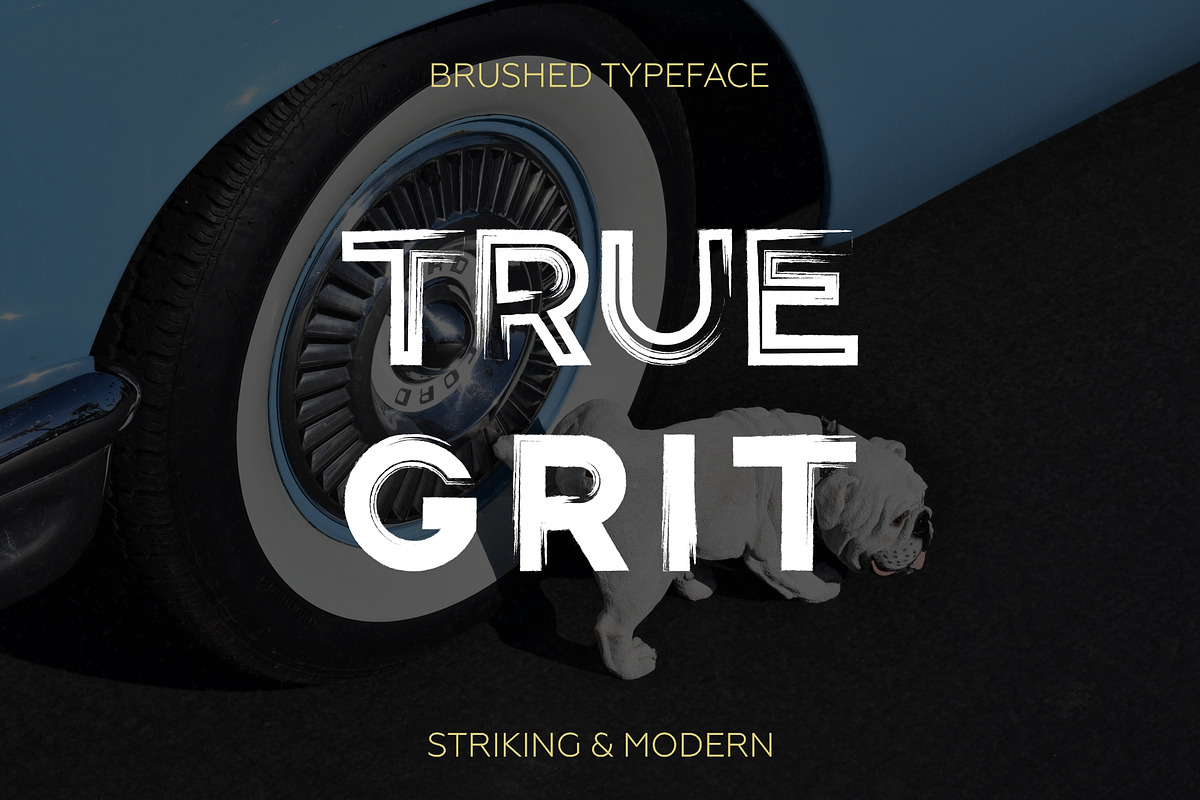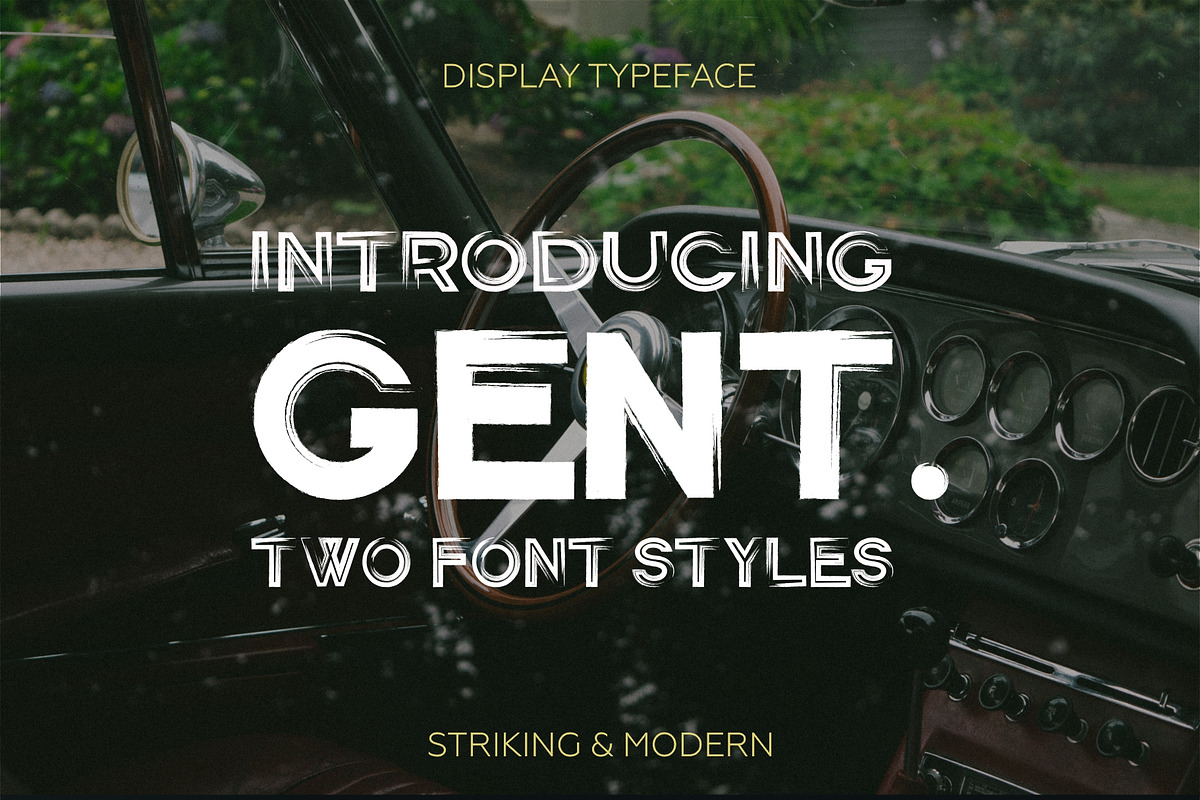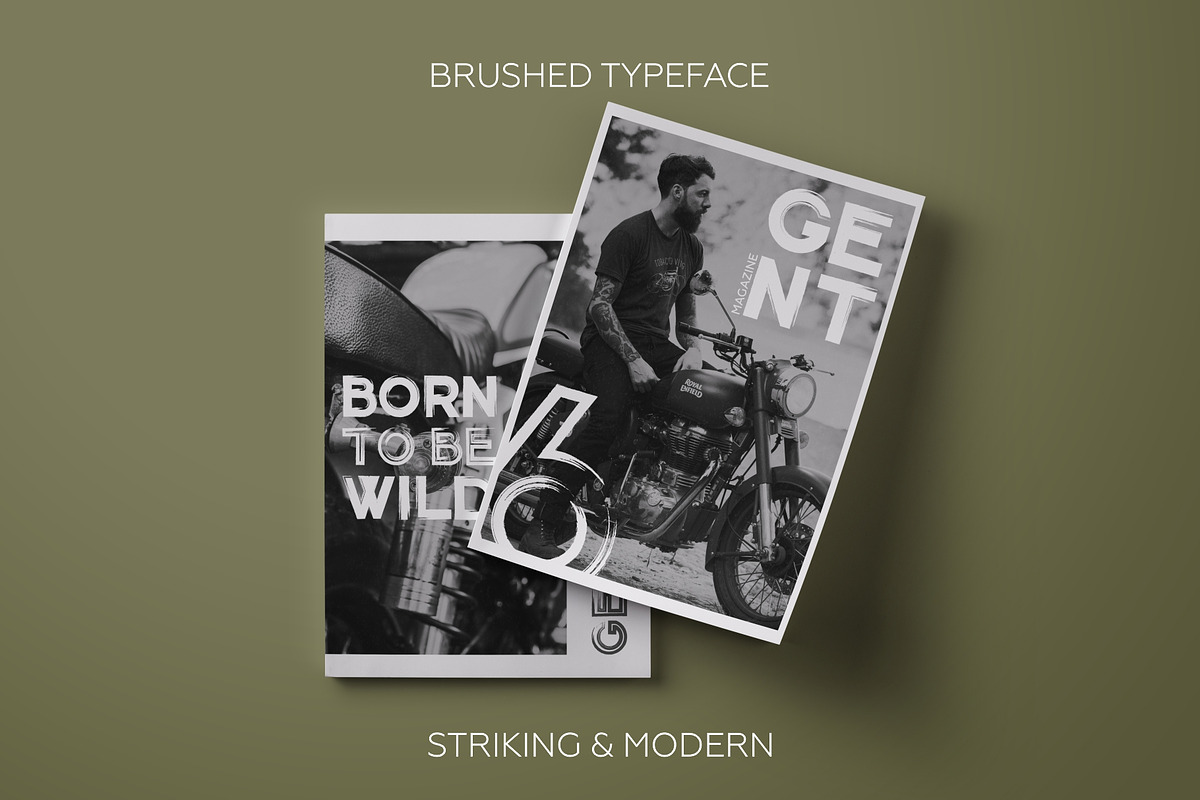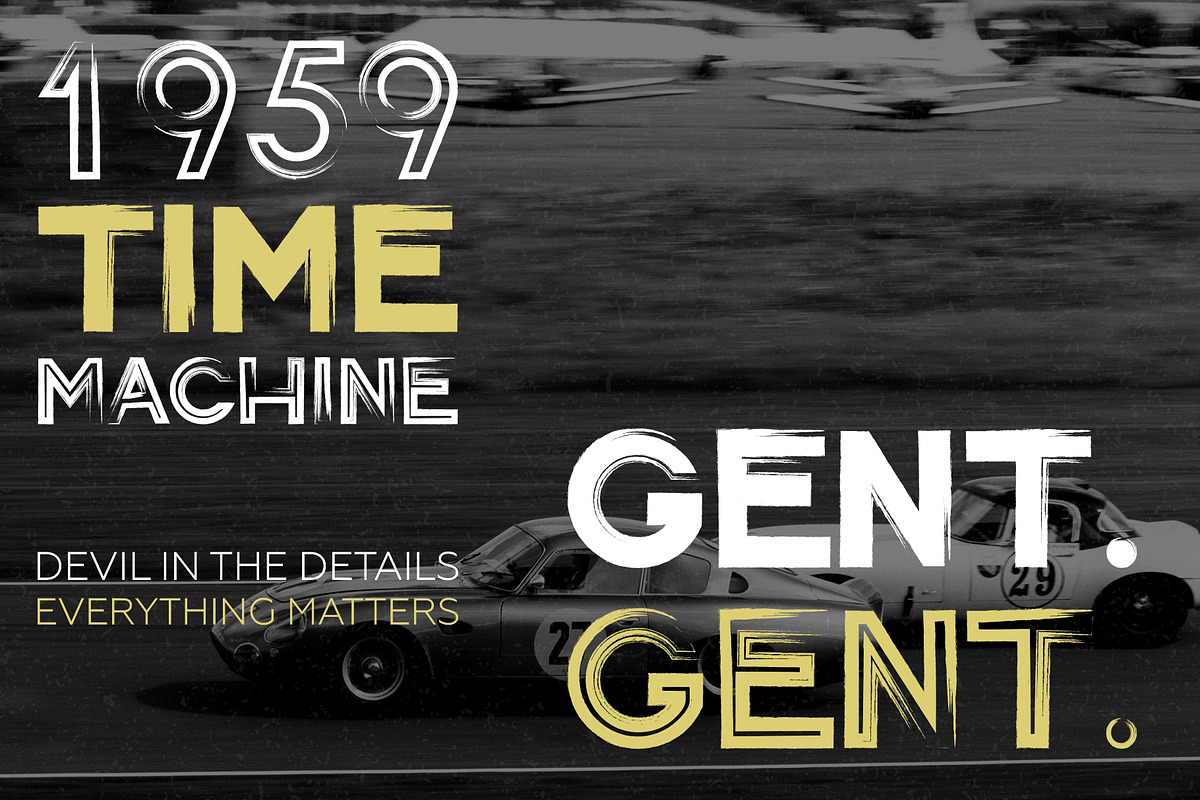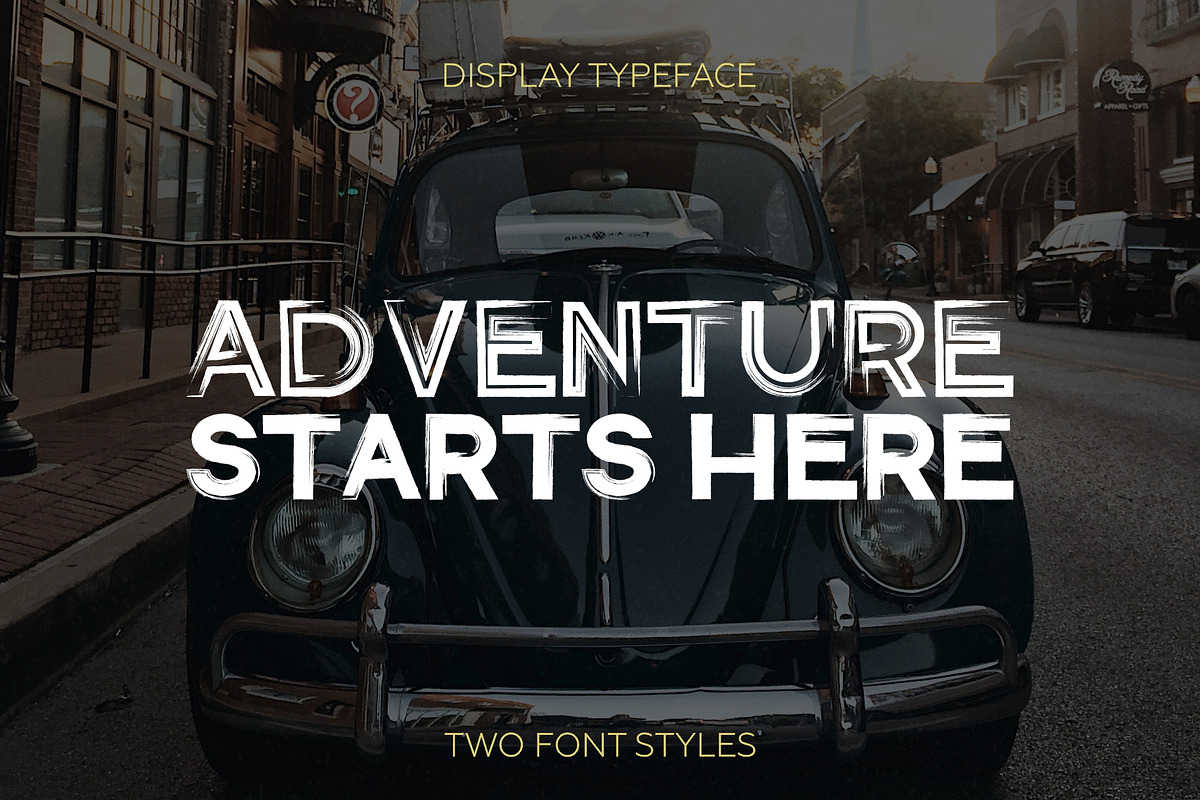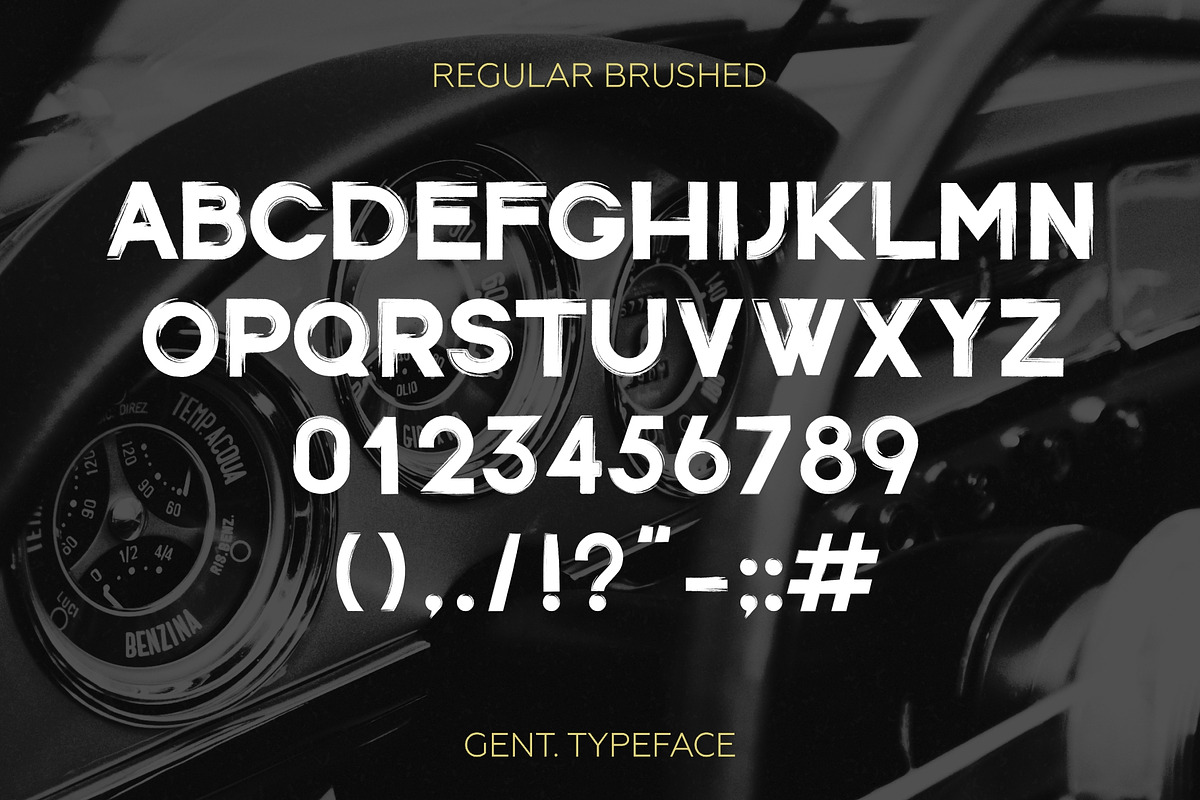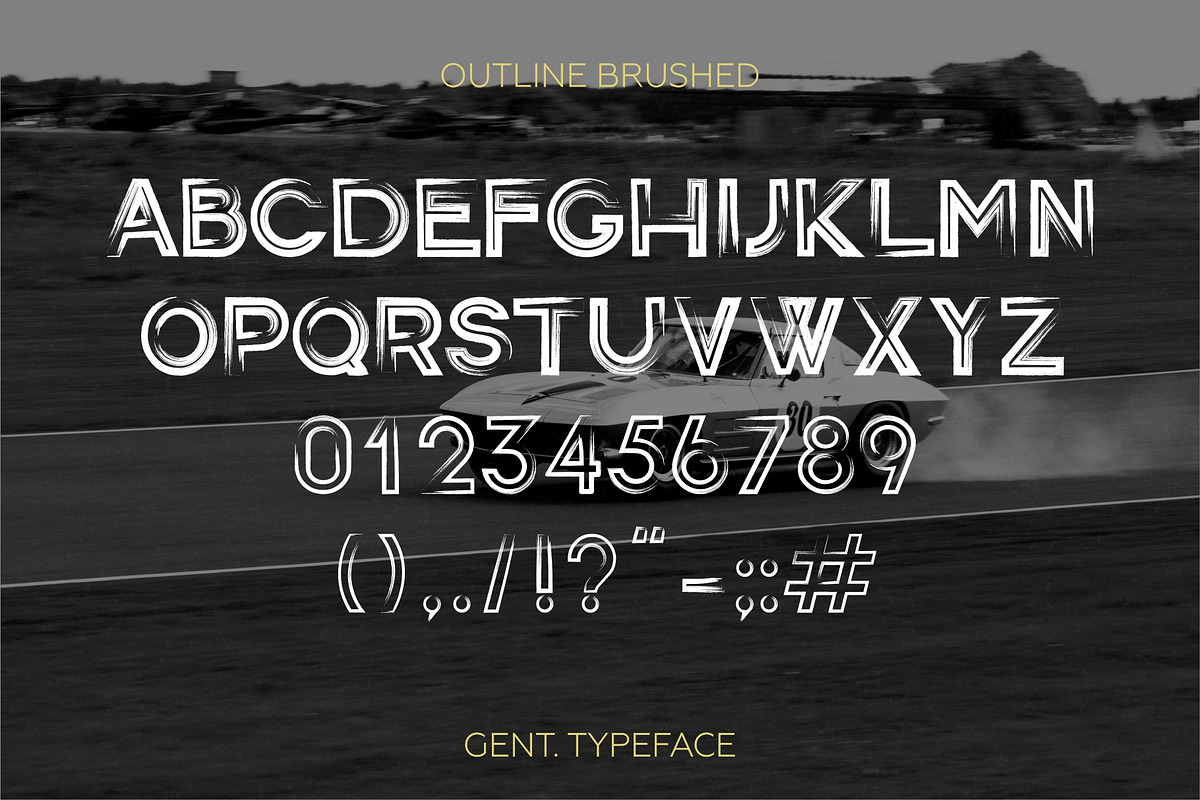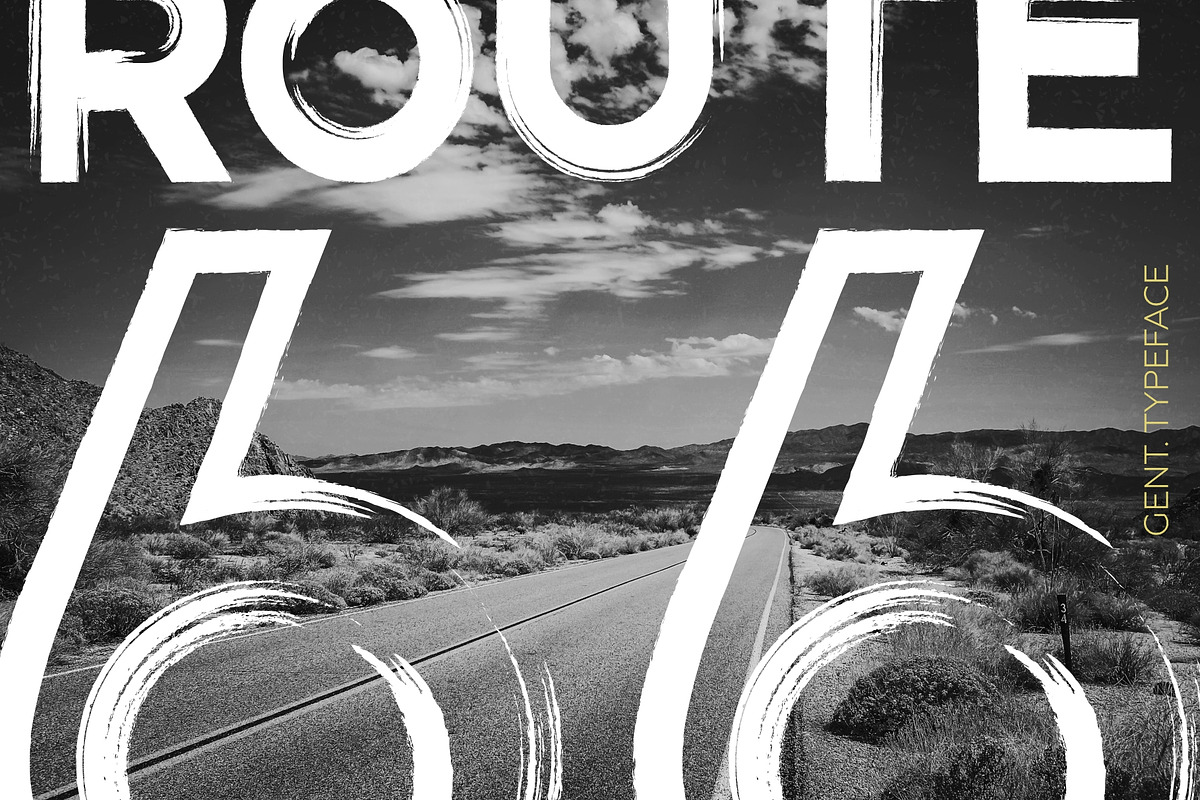
Gent. Display brushed typeface.
GENT. is a striking & modern display brushed typeface with two styles. Designed for great headers, typography compositions and some "sense of freedom" in your design projects. Looks elegant and modern.